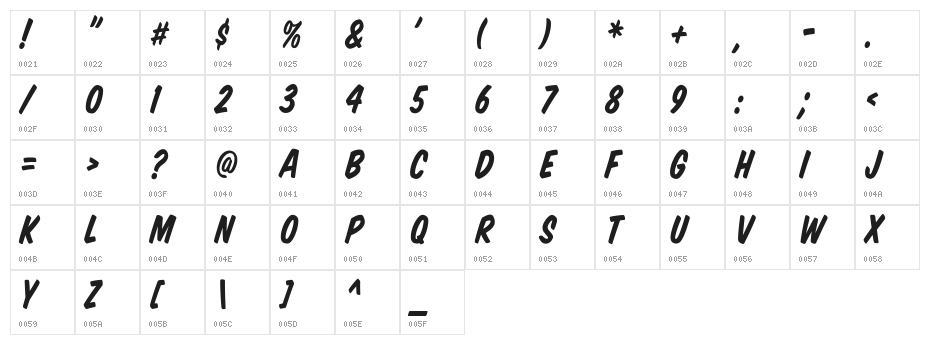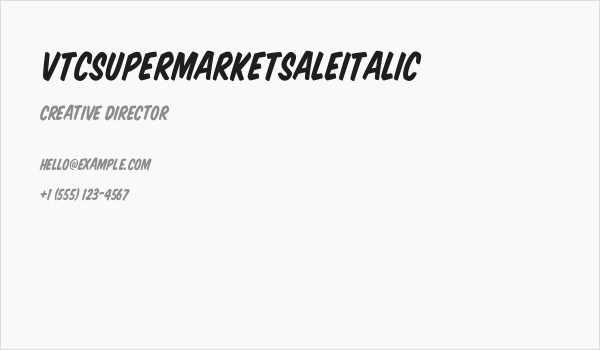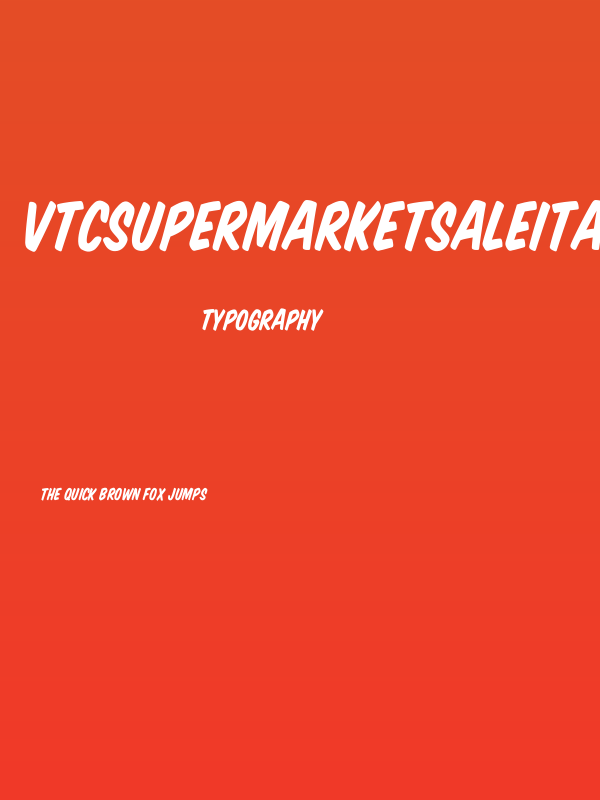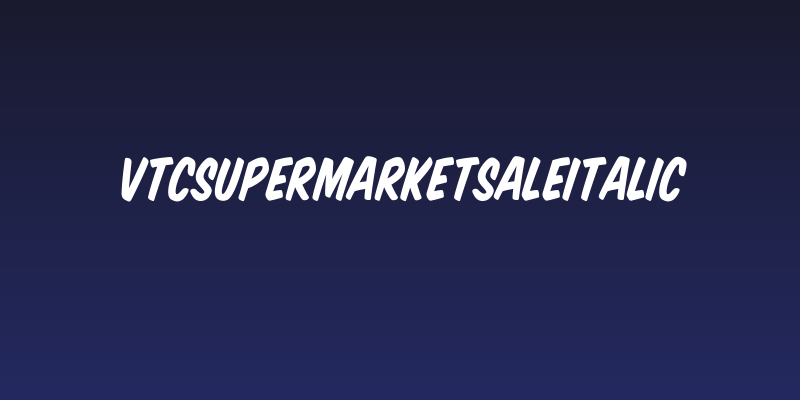
VTCSuperMarketSaleItalic Font
VTCSuperMarketSaleItalic Description
This font features a bold and dynamic style with a strong italic slant, giving it a sense of movement and energy. The characters are thick and rounded, providing a friendly and approachable appearance. The uppercase and lowercase letters maintain a consistent style, with smooth curves and a slightly condensed form. The numbers and special characters are equally bold, ensuring readability and impact. This font is ideal for creating eye-catching headlines and promotional materials that require a lively and engaging look.
| Proposed Projects | Perfect for advertising, posters, branding, and any project needing a bold, energetic typeface. |